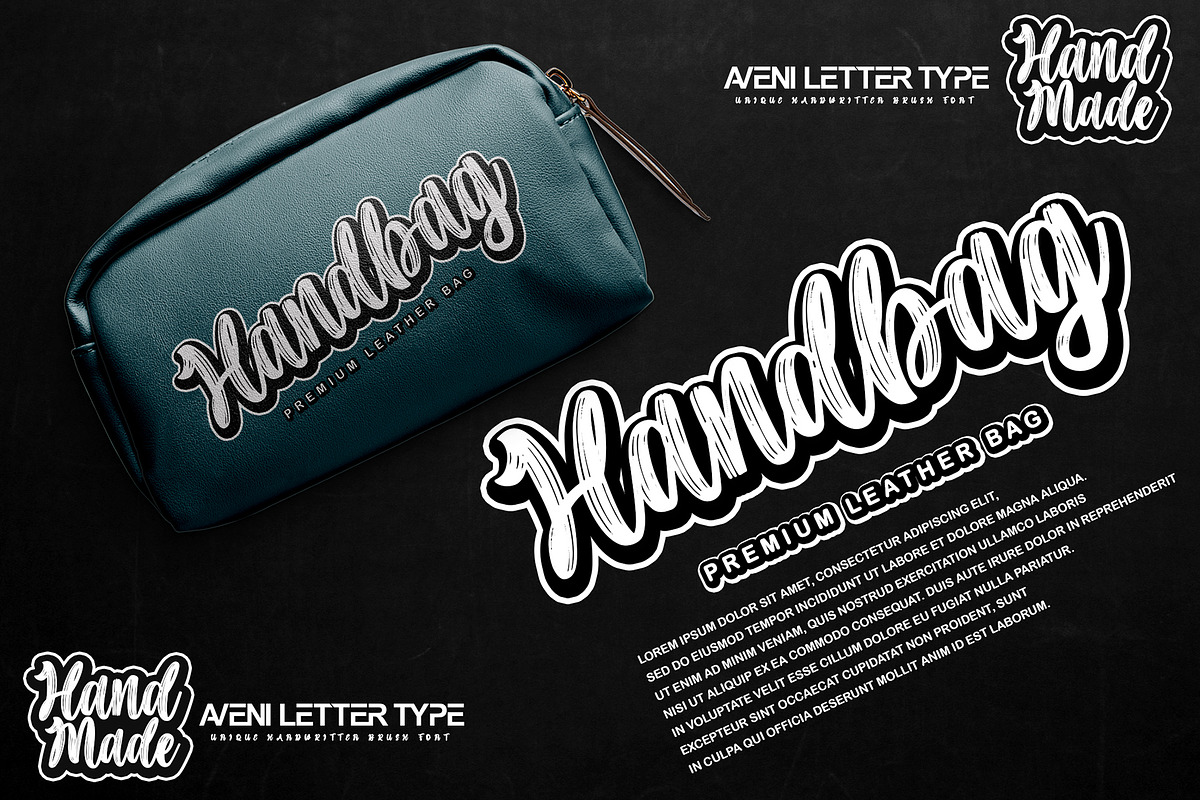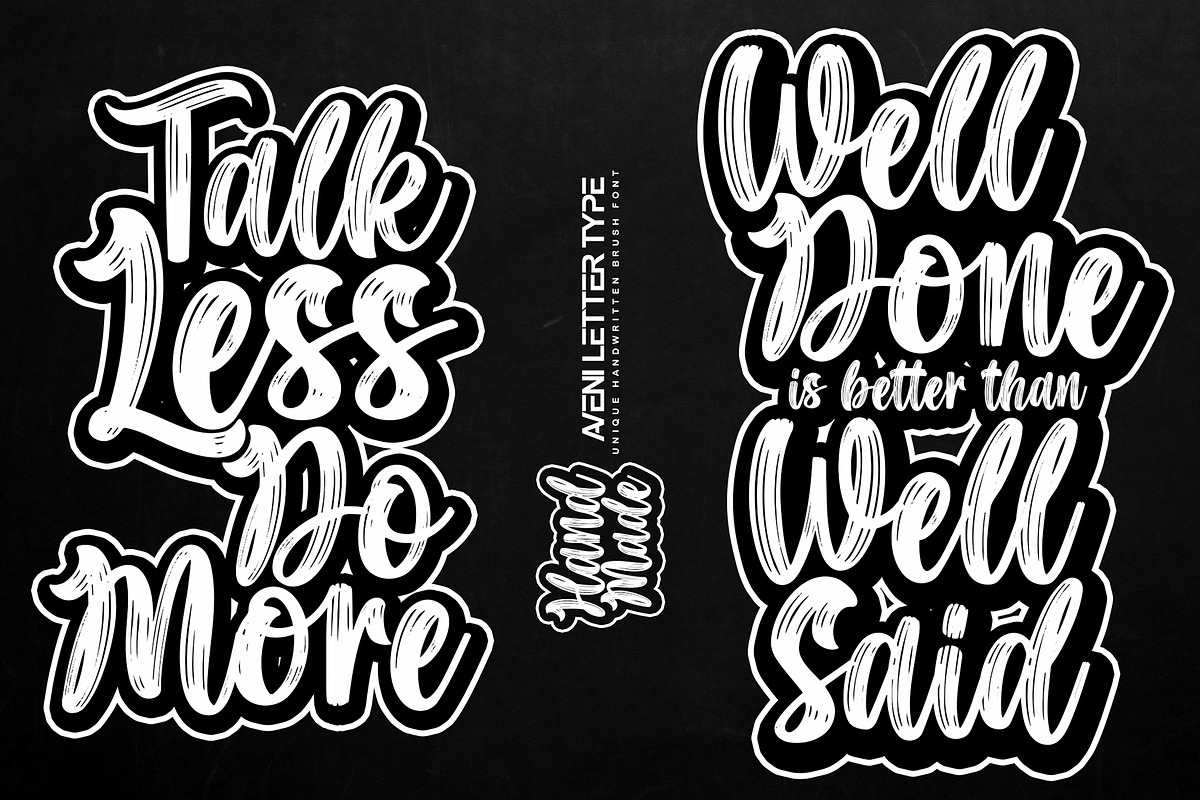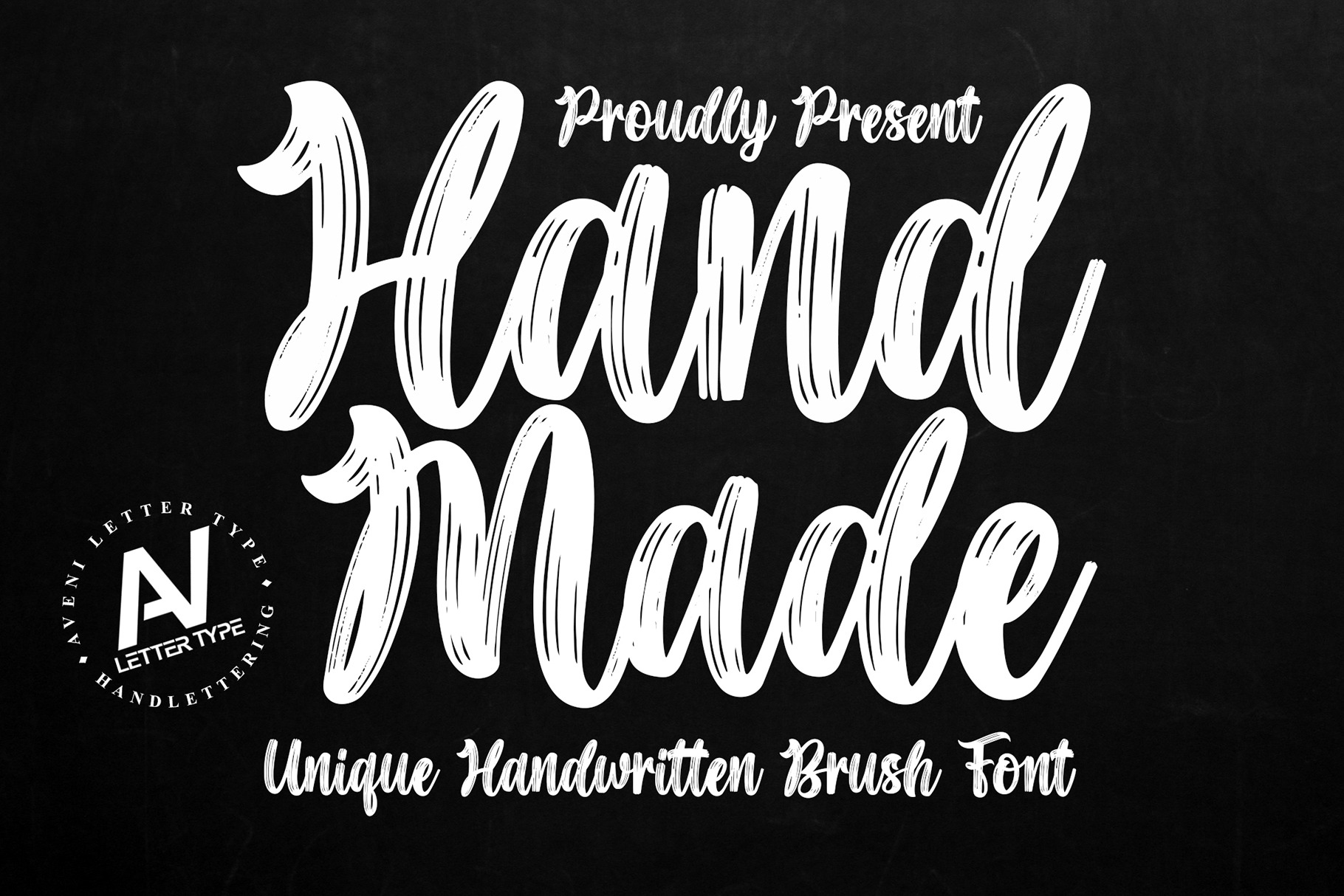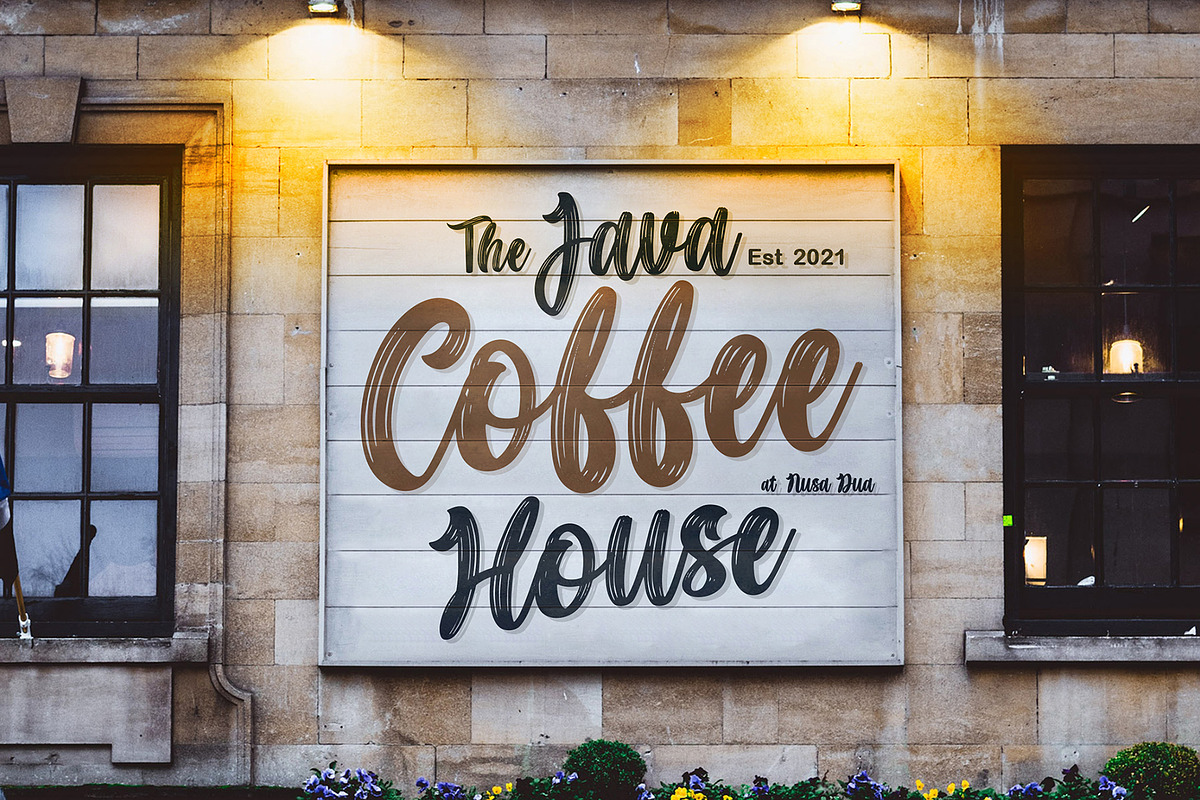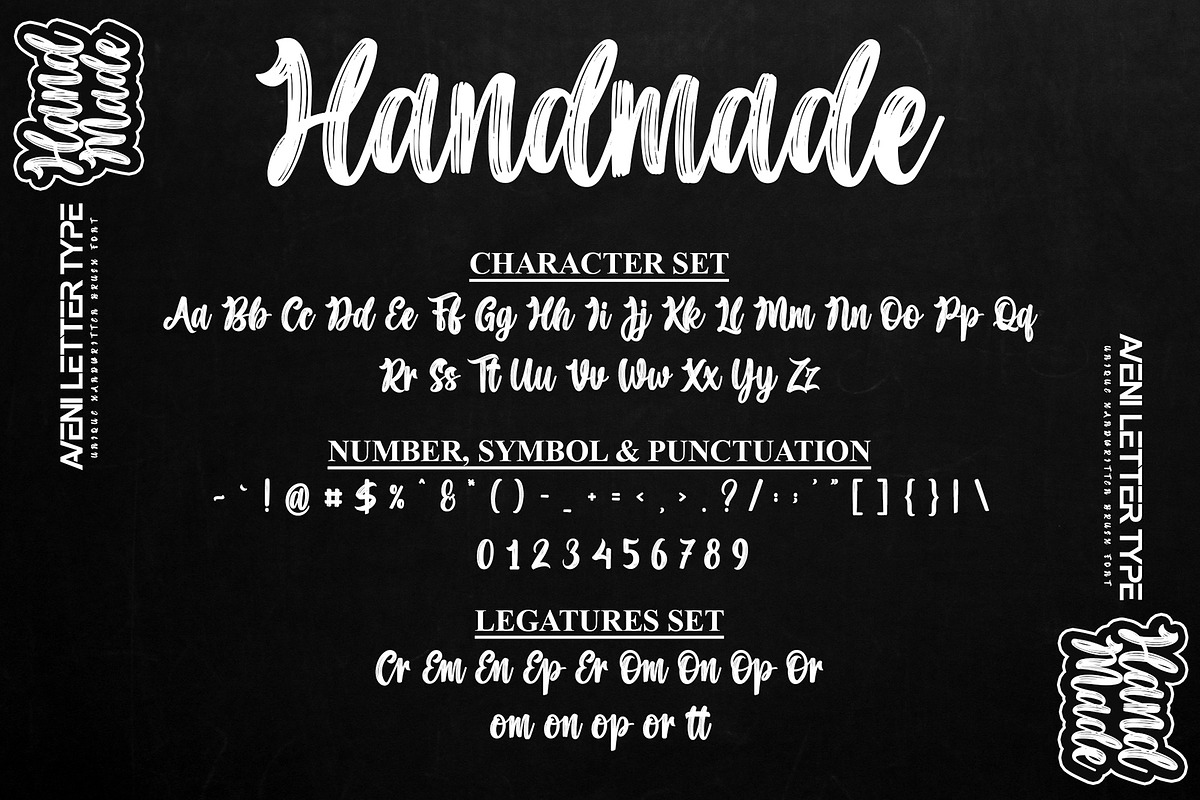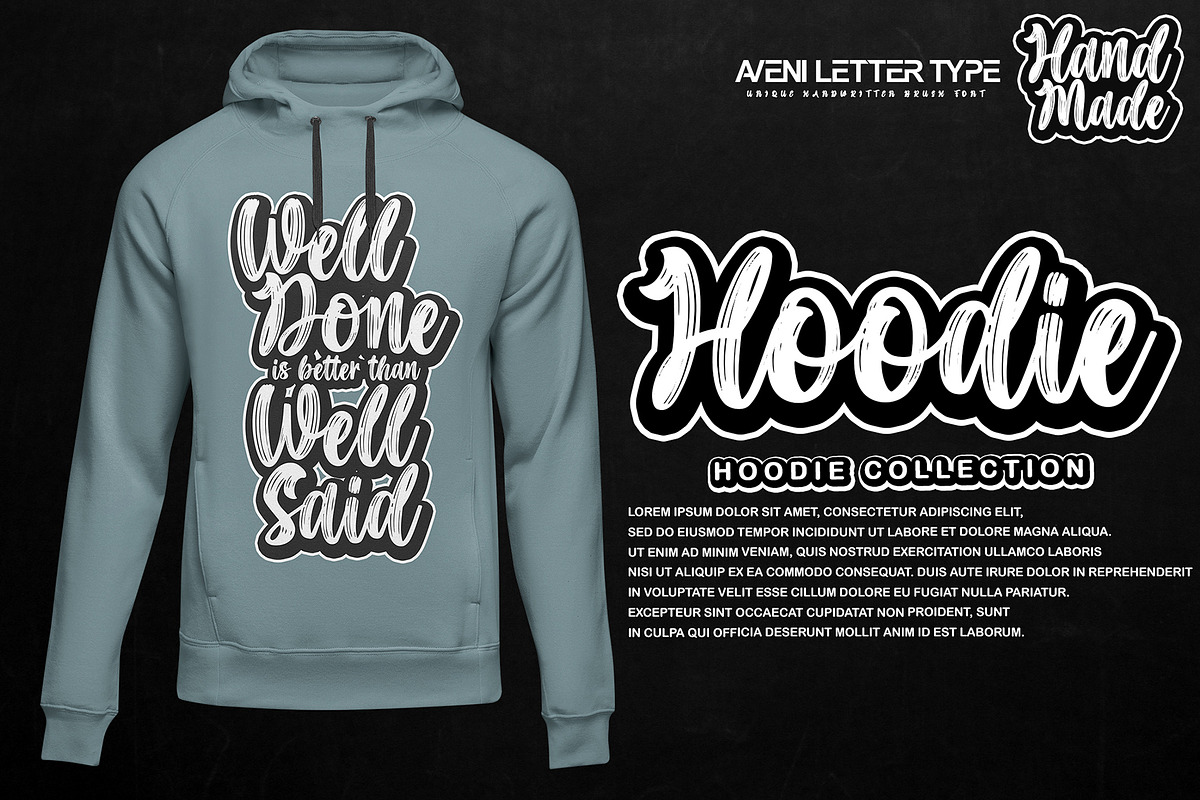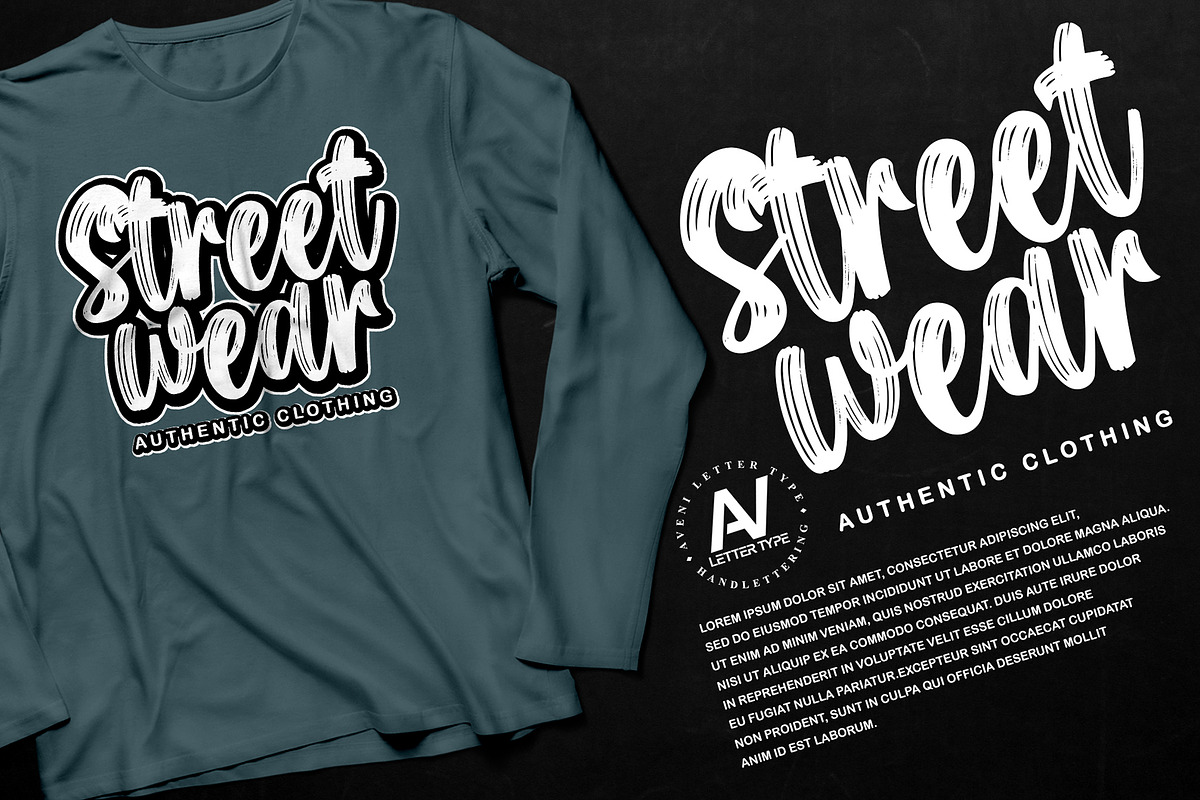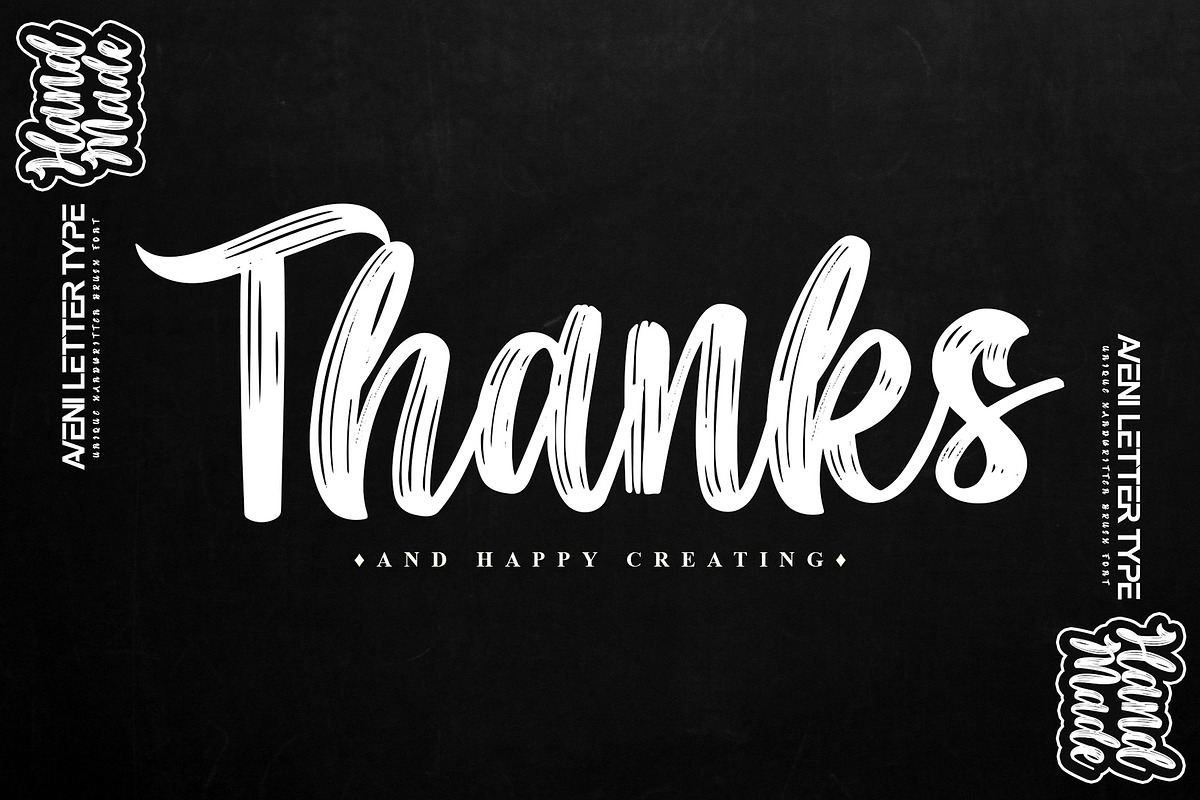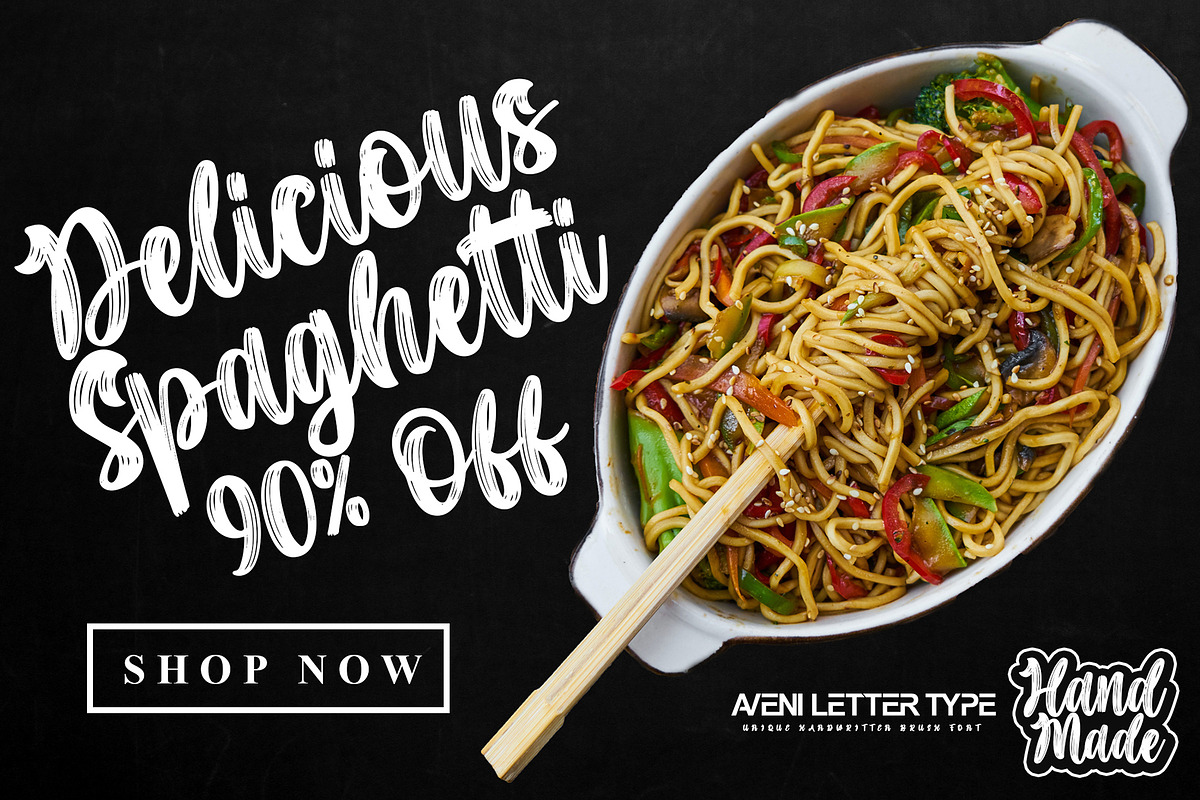
Handmade | Handwritten Brush Font
Handmade Font is a unique handwritten brush font that is stylish and has very neat kerning. Expertly designed to make your creations look amazing, this font will look great on a variety of ideas, and use it to get creative in outfits, t-shirt branding, pouch or bag branding, social media posts, store signage, and more!